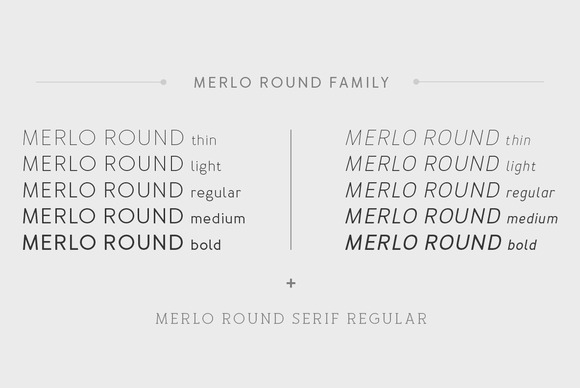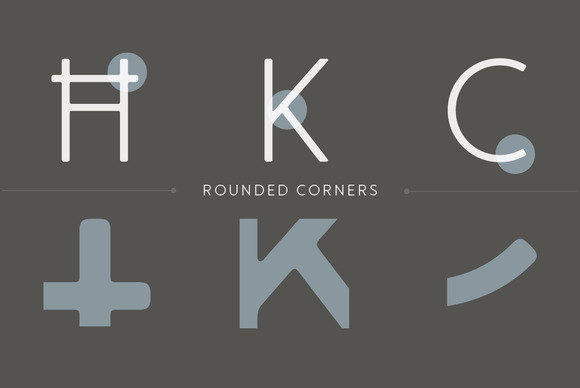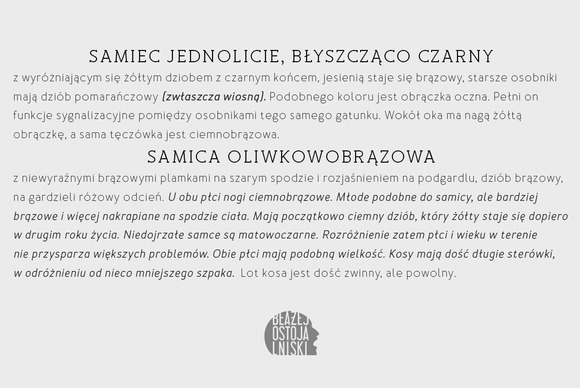
Introduction to Merlo Round Font
About the Merlo Round Font The Merlo Round Font Family can be seen as the younger brother of the Merlo Family.
The Merlo Round font family contains 12 different font variations with lower- and uppercase characters The Merlo Round Font was inspired by a Polish Magazine called β€œYou and Me”.